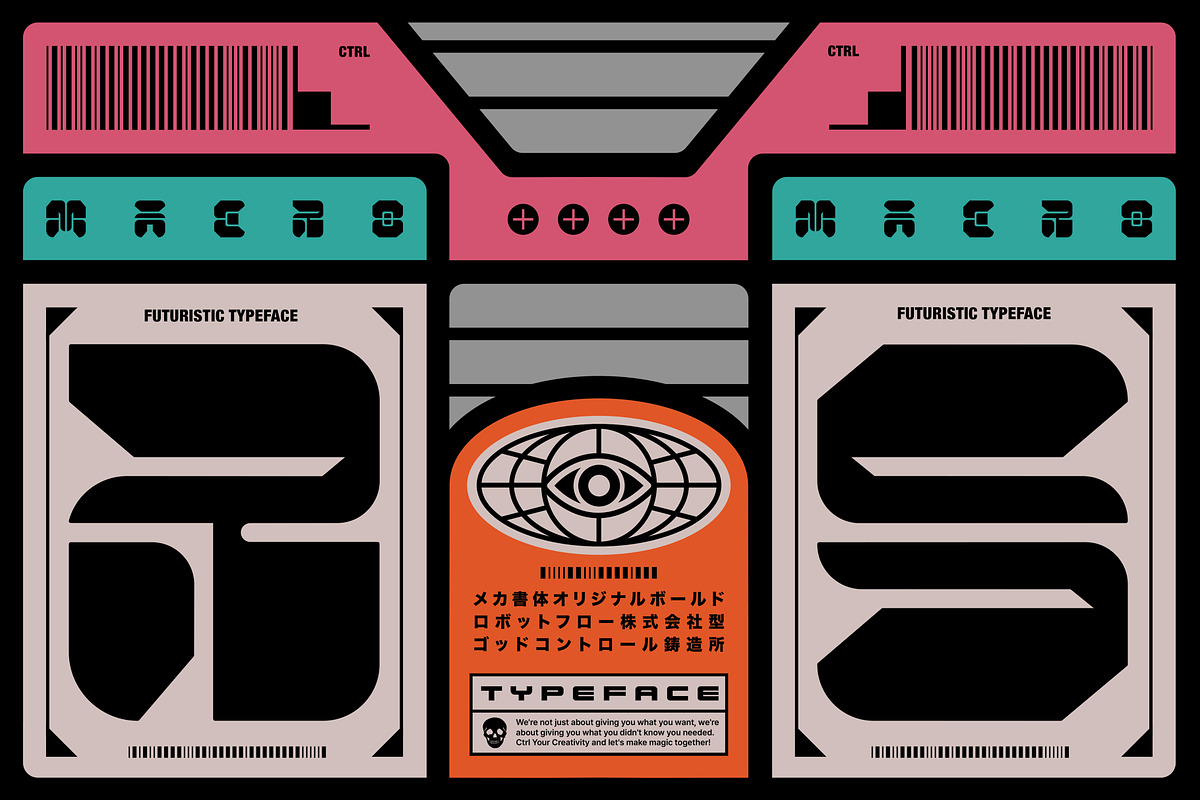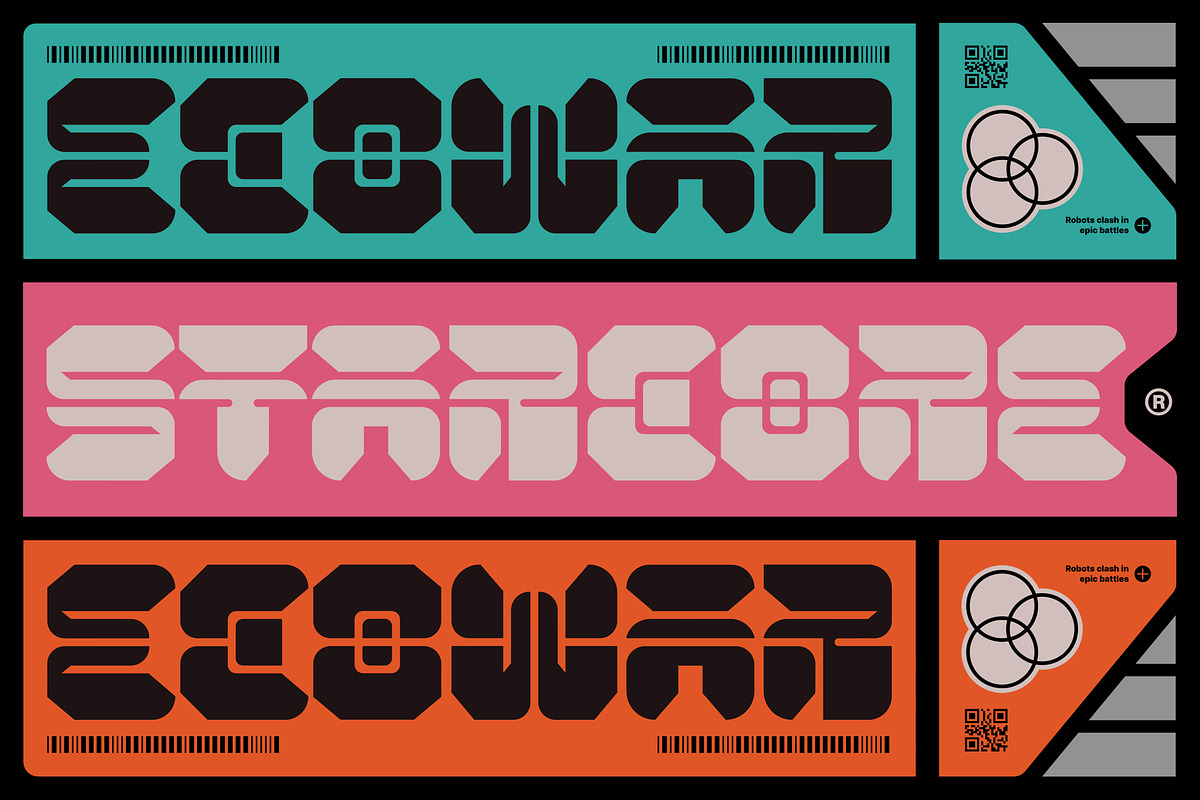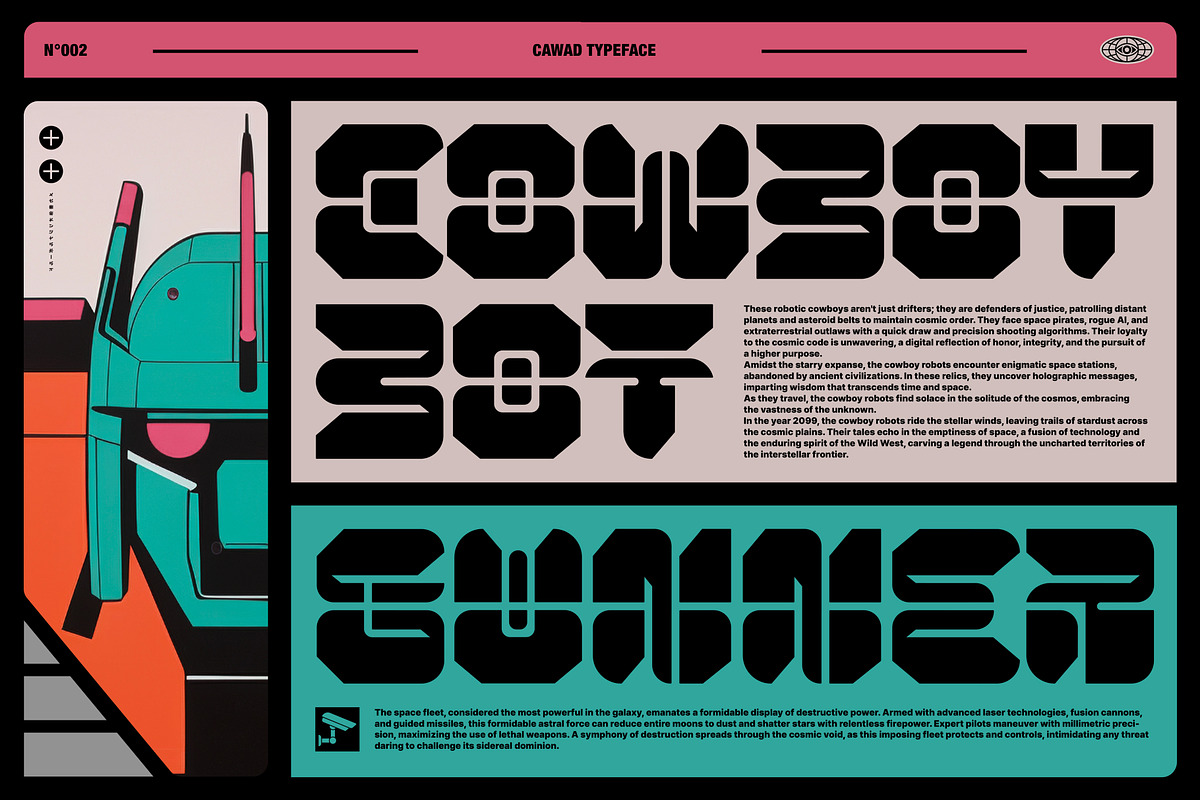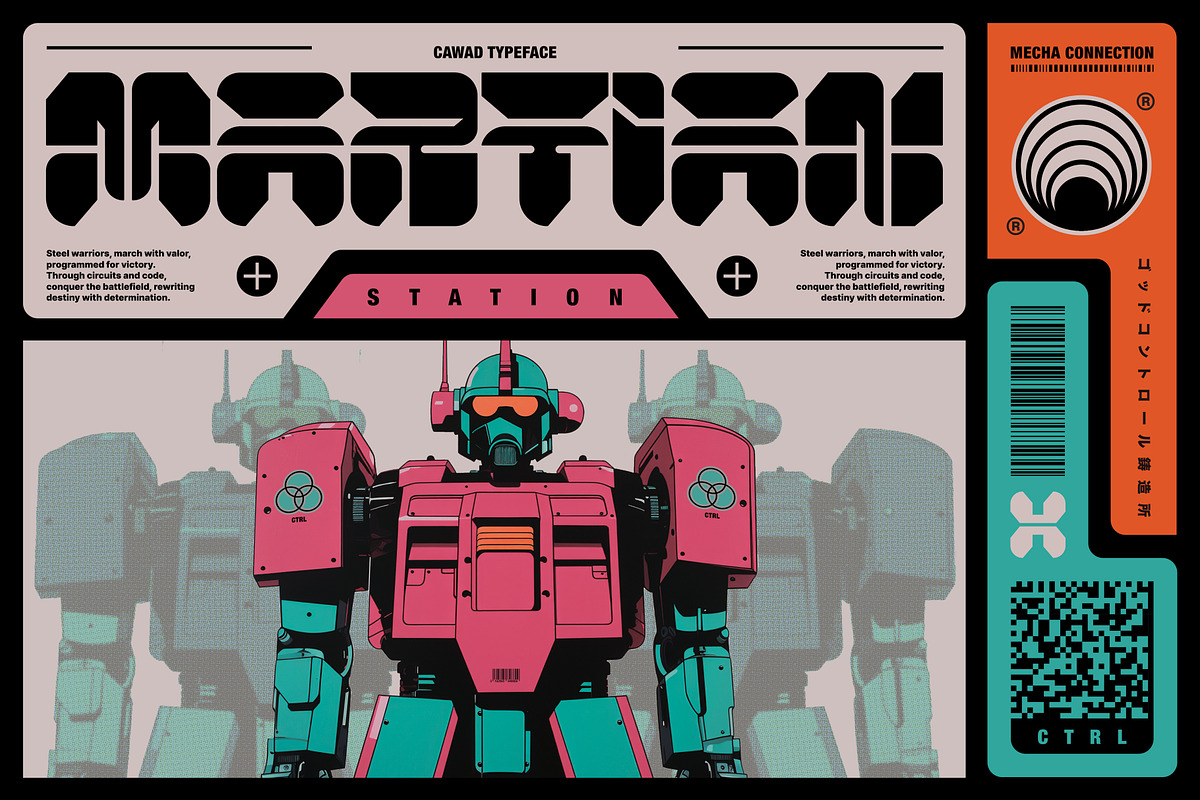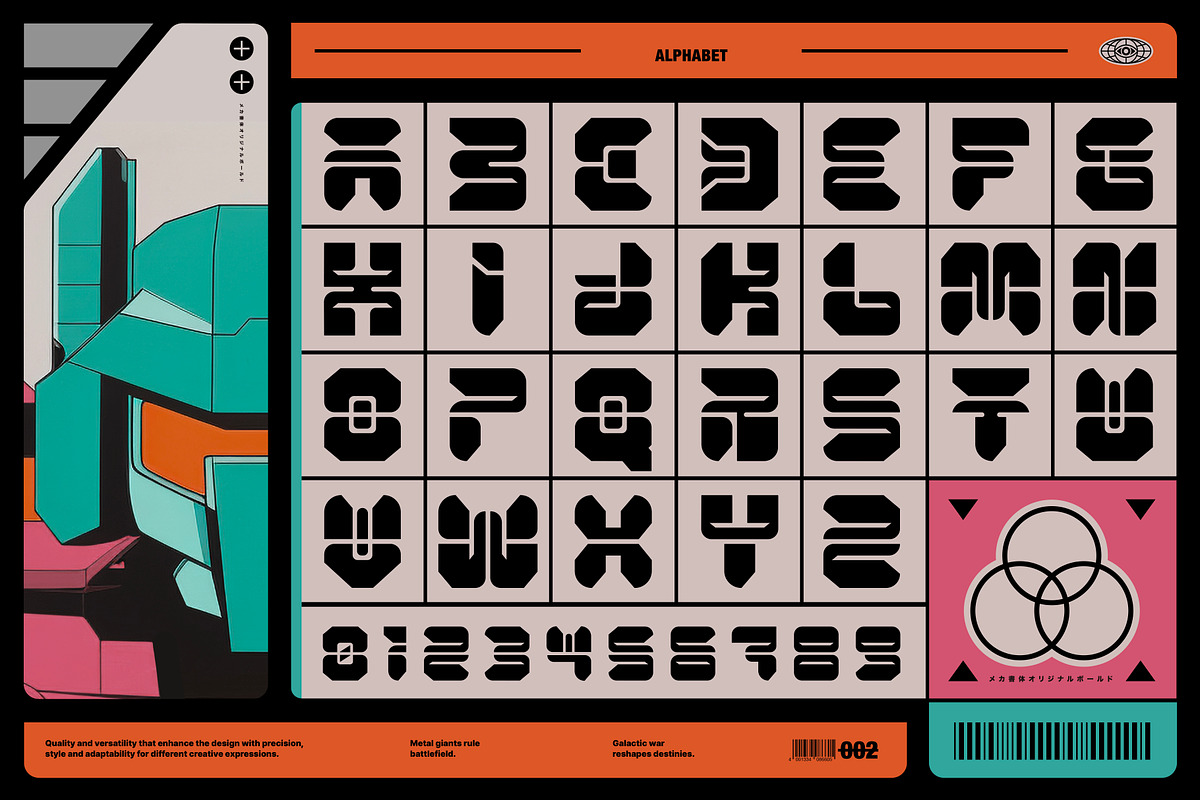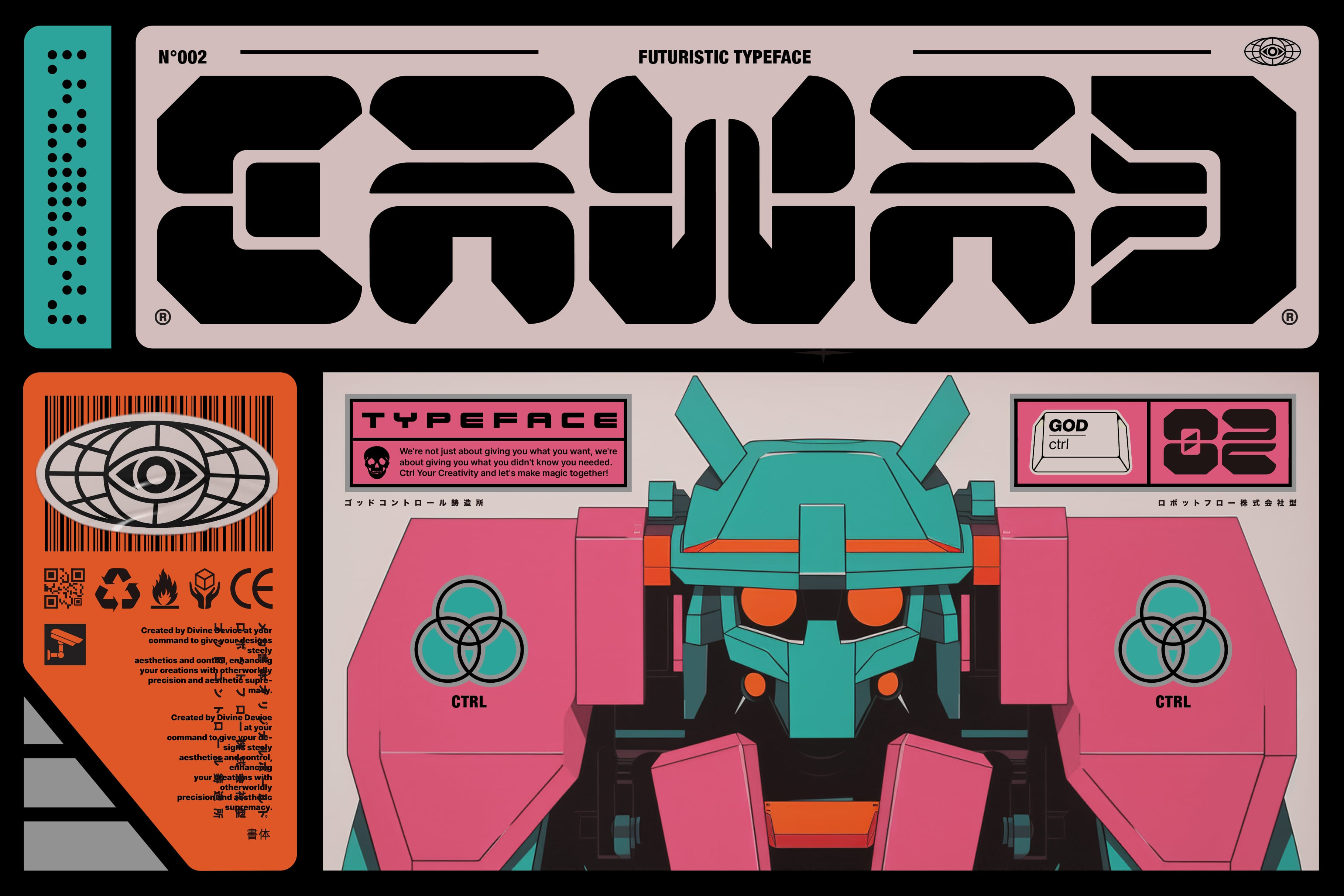
Cawad Display Typeface
Hey, design fam! Got a sec? Cause we got something spicy cooking in the digital kitchen – Cawad Display Font.
Now, we could bore you with all the technical stuff, but let's get real, but let's keep it real – it's not just a font, it's a whole new aesthetic packed into 44 characters. Each character is a masterpiece of futuristic, mecha-inspired goodness – perfect for grabbing attention and making your designs pop!
Picture this: it's the '90s, you're tearing open a box of your favorite mecha toys, feeling that rush of excitement as you dive into a world of robots, neon colors, and pure fun. That's the vibe we're serving up with CAWAD. It's like if Gundam and Tron had a baby and named it "Cool AF."